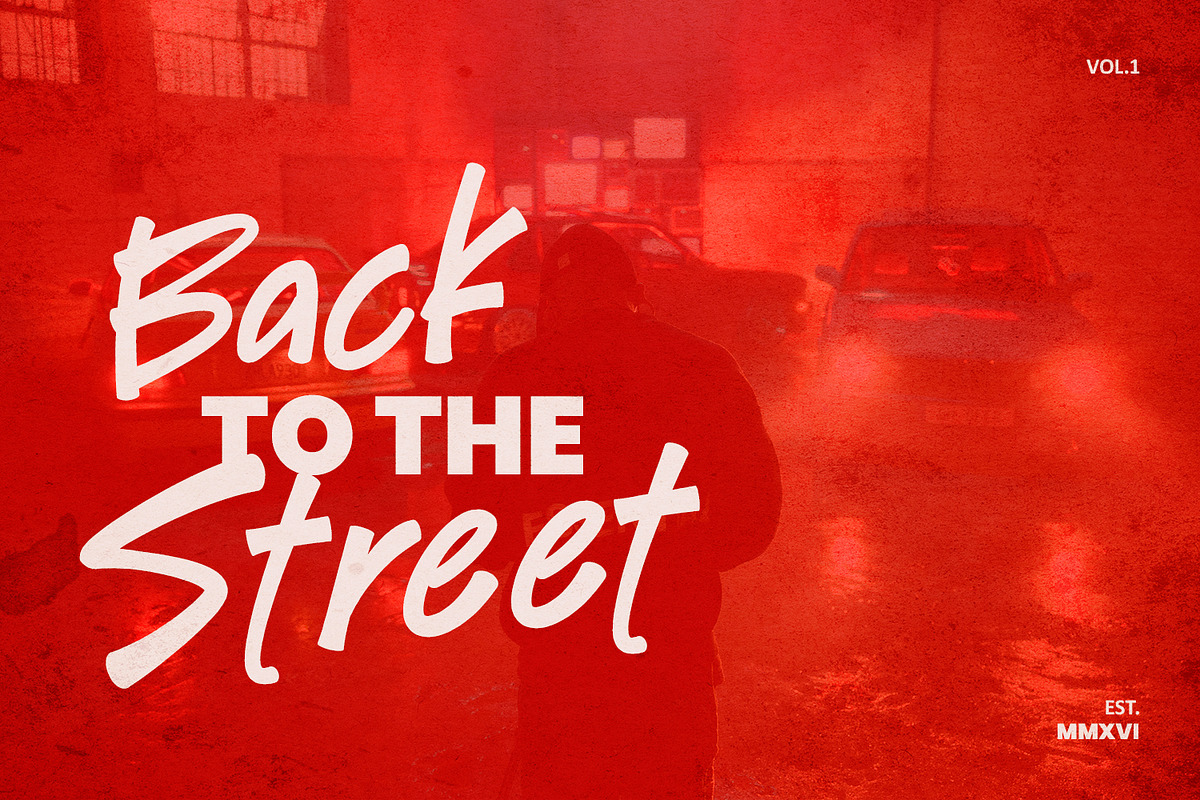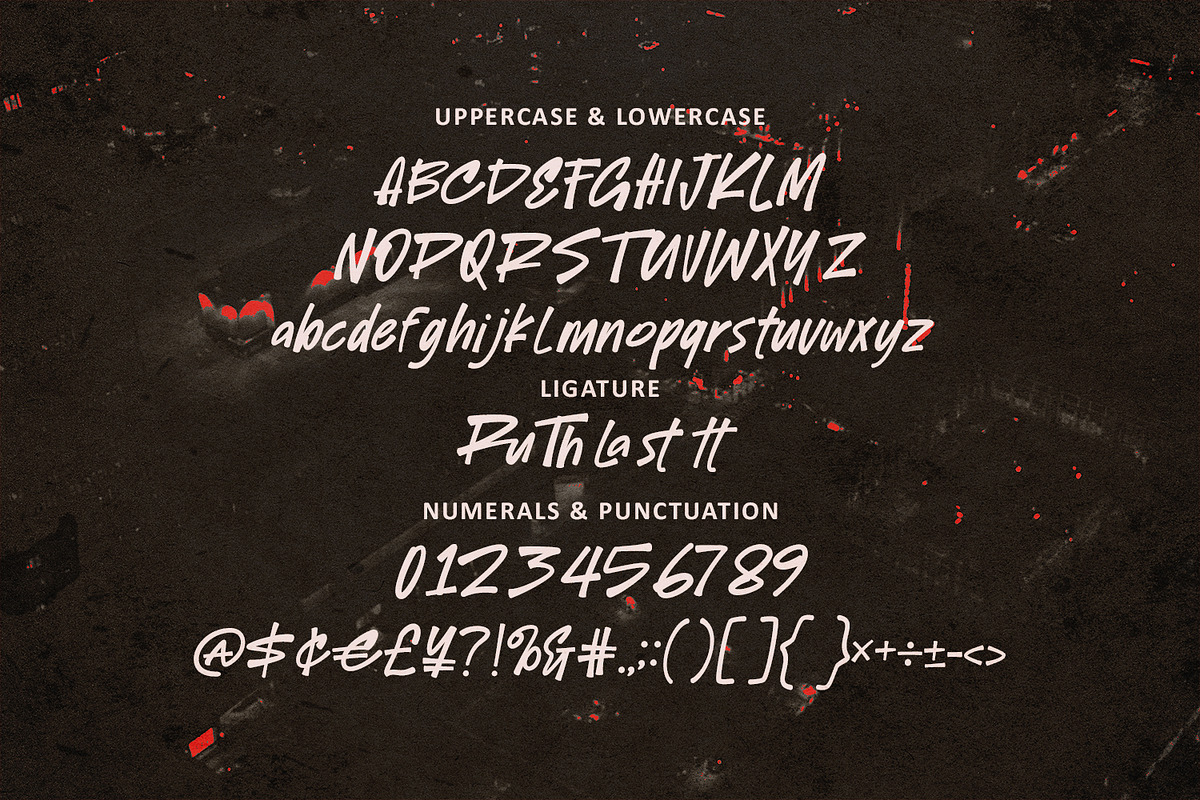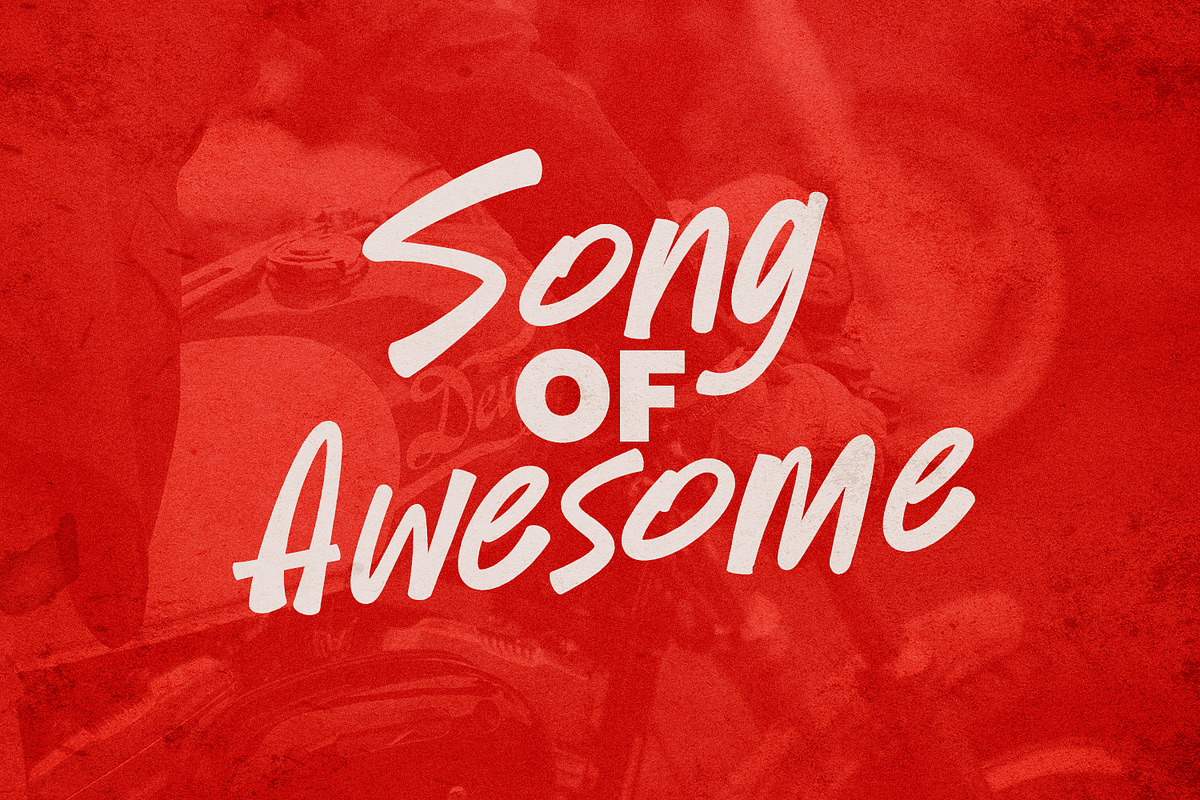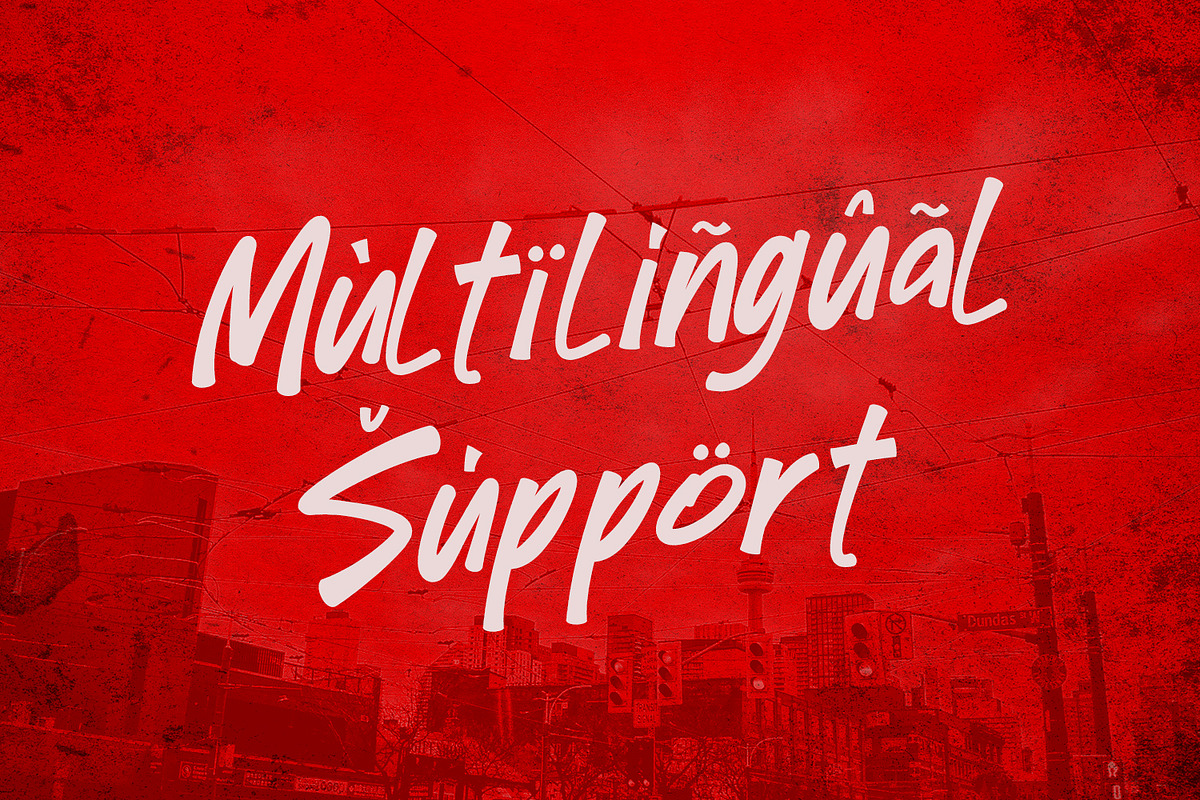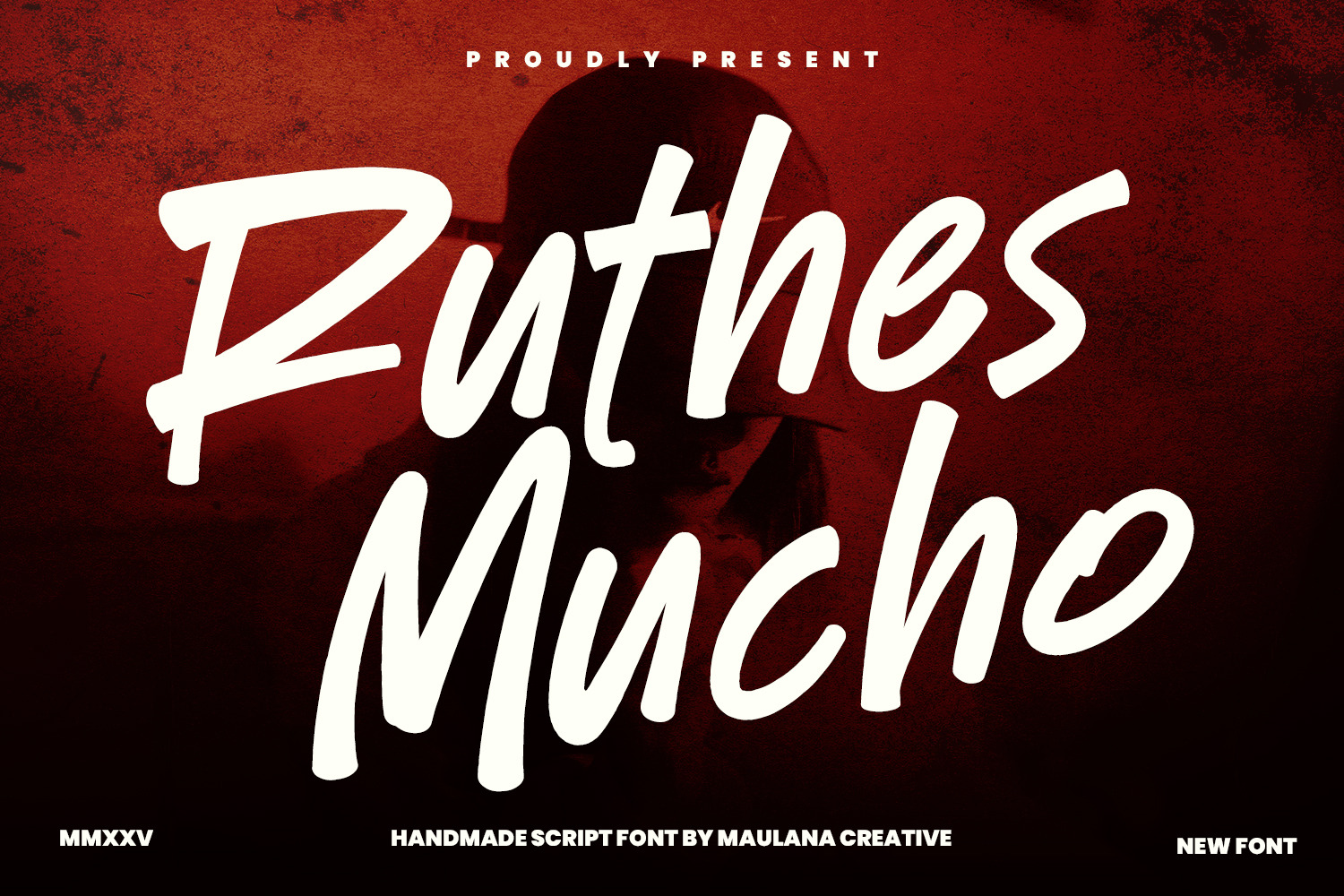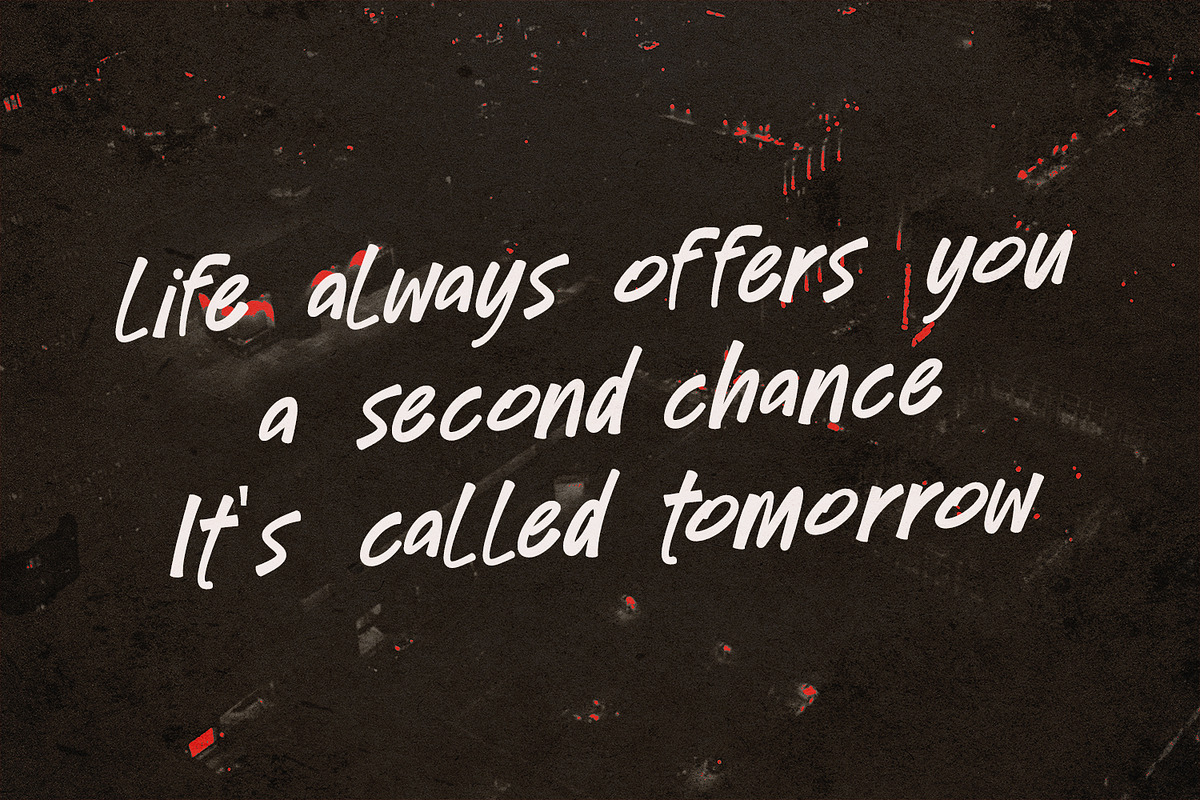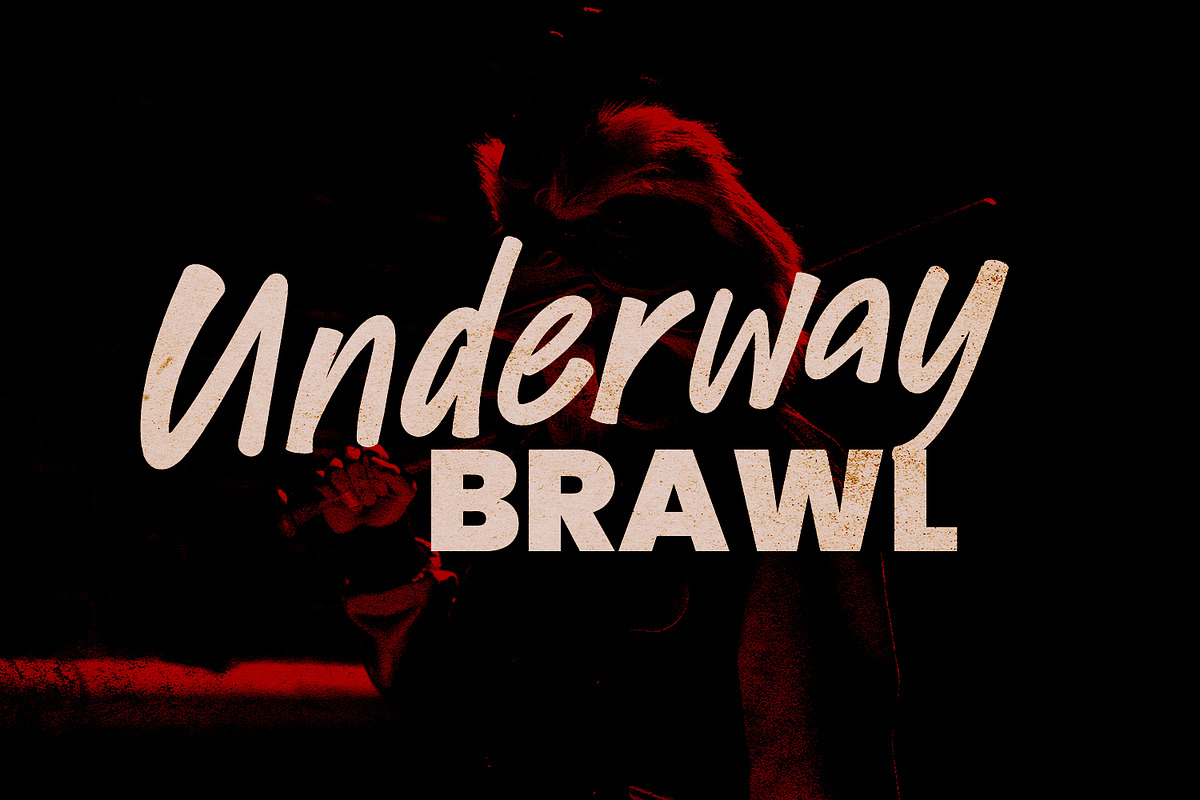
Ruthes Mucho Handmade Script Font
Ruthes Mucho is a authentic script handwritten font. With bold stroke, fun character with a bit of ligature. To give you an extra creative work. Ruthes Mucho font support multilingual more than 100+ language. This font is good for logo design, Social media, Movie Titles, Books Titles, a short text even a long text letter and good for your secondary text font with sans or serif. Make a stunning work with Ruthes Mucho font.